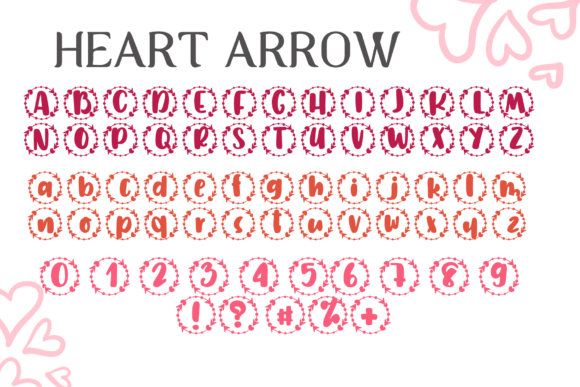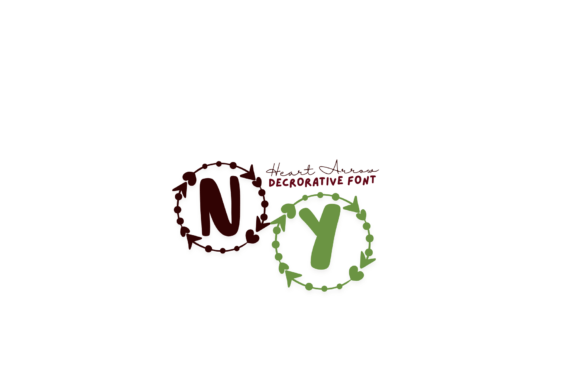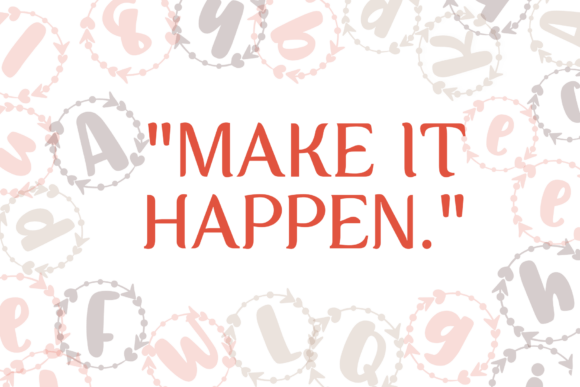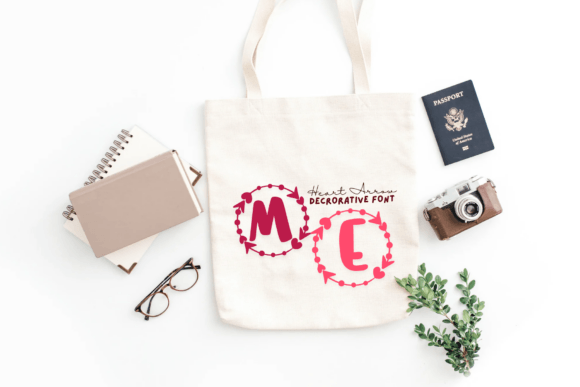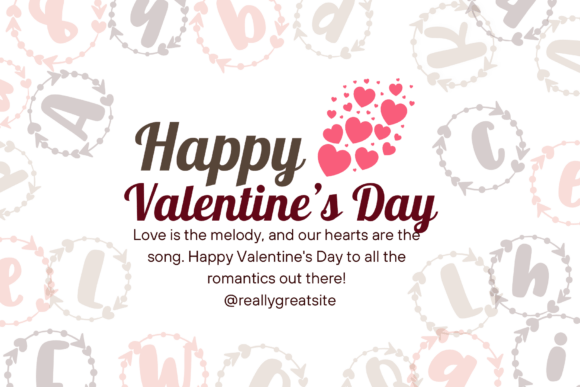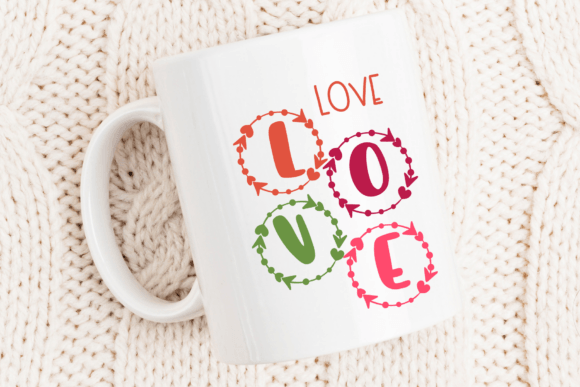
Heart Arrow Font: A Decorative Delight for Designers and Crafters
Are you a designer, crafter, or simply someone who loves to add a personal touch to your everyday creations? Look no further than the Heart Arrow Font, a beautiful and versatile decorative font that’s perfect for a wide range of projects. In this article, we’ll explore the many uses of Heart Arrow Font and how it can elevate your designs, from notes and diaries to banners, social media posts, and more.
What is Heart Arrow Font?
Heart Arrow Font is a unique and eye-catching decorative font that’s designed to add a touch of whimsy and romance to your creations. As its name suggests, the font features heart and arrow motifs, which are intricately woven together to create a beautiful and distinctive look. Whether you’re looking to add a personal touch to your journal entries, create custom greeting cards, or design eye-catching banners, Heart Arrow Font is the perfect choice.
Uses for Heart Arrow Font
One of the best things about Heart Arrow Font is its versatility. Here are just a few ideas for how you can use this beautiful font:
• Note-taking and journaling: Add a touch of personality to your notes and journal entries with Heart Arrow Font. Whether you’re writing down your thoughts, goals, or simply jotting down reminders, this font is sure to make your writing look stylish and fun.
• Greeting cards and invitations: Create custom greeting cards, invitations, and gift tags with Heart Arrow Font. This font is perfect for special occasions like birthdays, anniversaries, and holidays.
• Banners and signs: Use Heart Arrow Font to create eye-catching banners and signs for parties, events, or simply to decorate your home. You can use this font to create custom banners for special occasions or as a decorative element for your everyday decor.
• Social media posts: Add a touch of personality to your social media posts with Heart Arrow Font. Whether you’re creating graphics for Instagram, Facebook, or Twitter, this font is sure to make your posts stand out.
• Mugs, shirts, and stationery: Use Heart Arrow Font to create custom mugs, shirts, and stationery. This font is perfect for crafters who love to create handmade items for themselves or as gifts.
Why Choose Heart Arrow Font?
So why choose Heart Arrow Font over other decorative fonts? Here are just a few reasons why this font stands out:
• Unique and eye-catching: Heart Arrow Font is a truly unique and eye-catching font that’s sure to grab attention. The heart and arrow motifs are intricately woven together to create a beautiful and distinctive look.
• Versatile: As we’ve already discussed, Heart Arrow Font is incredibly versatile. You can use it for a wide range of projects, from notes and journals to banners and social media posts.
Tips for Using Heart Arrow Font
Here are a few tips for getting the most out of Heart Arrow Font:
• Experiment with different colors: Heart Arrow Font looks great in a variety of colors, from bold and bright to soft and pastel. Experiment with different colors to find the look that works best for your project.
• Mix and match with other fonts: Don’t be afraid to mix and match Heart Arrow Font with other fonts. This can add visual interest and create a unique look.
• Use it sparingly: While Heart Arrow Font is beautiful, it can be overwhelming if used too much. Use it sparingly to add a touch of personality to your designs.
Font Name Heart Arrow Font
Heart Arrow Font is a beautiful and versatile decorative font that’s perfect for designers, crafters, and anyone who loves to add a personal touch to their creations. With its unique and eye-catching design, Heart Arrow Font is sure to elevate your designs and make them stand out. Whether you’re creating notes, journals, banners, social media posts, or more, Heart Arrow Font is the perfect choice. So why wait? Download Heart Arrow Font today and start creating!